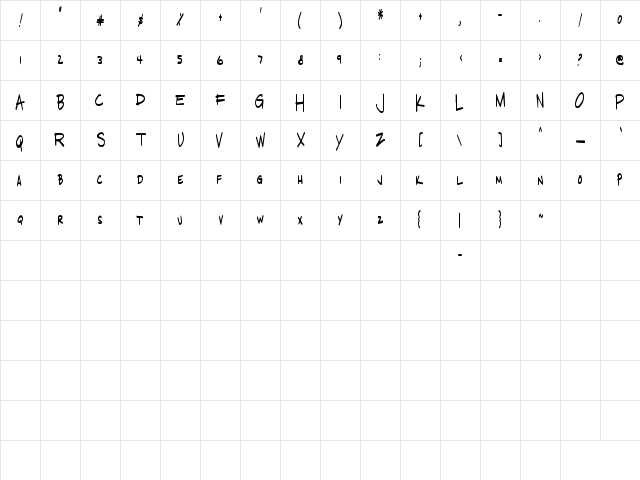
2Peas Fetching Regular
Design Context for 2Peas Fetching Typeface
2Peas Fetching is a composed and adaptable typeface that performs quietly and consistently across a wide range of design contexts.